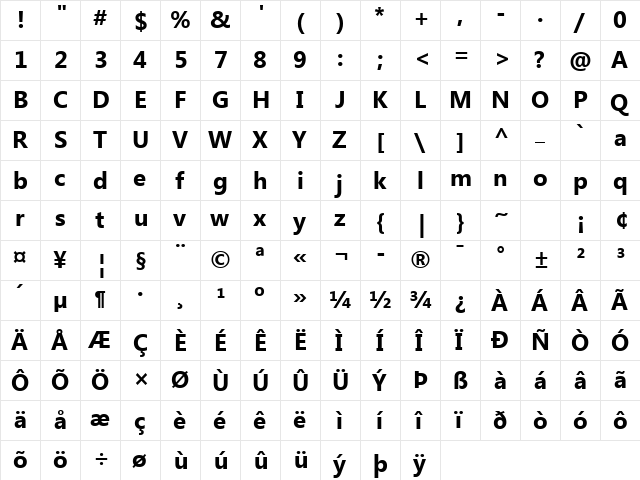
Myanmar Text Bold
| Foundry | Microsoft Corporation |
| Designer | John Hudson. [Latin subset: Segoe UI, Steve Matteson.] |
Design Context for Myanmar Text Typeface
Myanmar Text offers clean, dependable letterforms without strong stylistic allegiance, making it a practical choice for designers who need flexibility. The heavy weight commands attention and anchors typographic hierarchies.